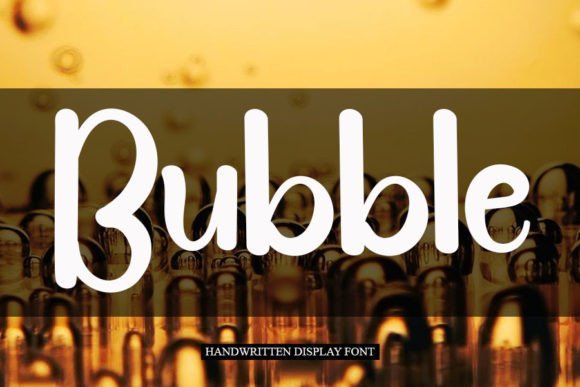
The Perfect Blend of Whimsy and Elegance: Unveiling the Bubble Font
Have you ever been brainstorming a new design project and suddenly, the perfect idea strikes you? It’s like a spark of creativity has ignited within you, and you can’t wait to bring it to life. For designers, this moment is what it’s all about – finding that special something that makes a design truly unique. And, for those who have been searching for it, we’re excited to introduce the Bubble Font – a magical handwritten font that’s sure to add a touch of elegance to any project.
This beautiful font is designed to be clean, quirky, and versatile, making it the perfect fit for logos, branding, social media, and crafty DIY projects. Whether you’re a seasoned designer or a creative enthusiast, the Bubble Font is an invaluable asset that will elevate your designs to the next level.
Bubble Font Key Features
- Font Style: Unique bubble-like shape, creating a playful and eye-catching effect.
- Character Count: Includes a wide range of characters, including uppercase and lowercase letters, numbers, and punctuation marks.
- Language Support: Compatible with multiple languages, including English, Spanish, French, German, and more, making it a versatile font for global designs.
Bubble Font Review
I’ve had the chance to work with the Bubble Font, and I must say it’s a unique and eye-catching typeface. ✨ One of the things I like about it is the playful, whimsical feel it adds to any design. The rounded edges and bubbly shapes give it a friendly, approachable vibe that’s perfect for children’s content, social media, or even food packaging.
Another thing I appreciate about the Bubble Font is its versatility. It comes in a range of weights and styles, from light to bold, which makes it easy to use in a variety of contexts. ✨ The font also includes a range of swashes and alternates, which can add an extra touch of personality to your design.
While the Bubble Font is a lot of fun to work with, there are a few limitations to consider:
- ⚠️ The font can be a bit difficult to read at smaller sizes, especially in print. This may require adjusting the font size or using a different font in conjunction with the Bubble Font.
- ⚠️ The playful feel of the font can sometimes come across as immature or unprofessional. This may not be suitable for all types of design or branding.
Overall, I think the Bubble Font is a great choice for designers looking to add some personality and whimsy to their work. While it may not be suitable for all types of design, it’s a versatile and fun font that can add a lot of visual interest to a project. With a little creativity and experimentation, I think the Bubble Font can be a real asset in your design toolkit.
Bubble Font is commonly used for:
- Creating playful and eye-catching titles and headings.
- Adding a whimsical touch to children’s books and educational materials.
- Designing social media graphics and advertisements.